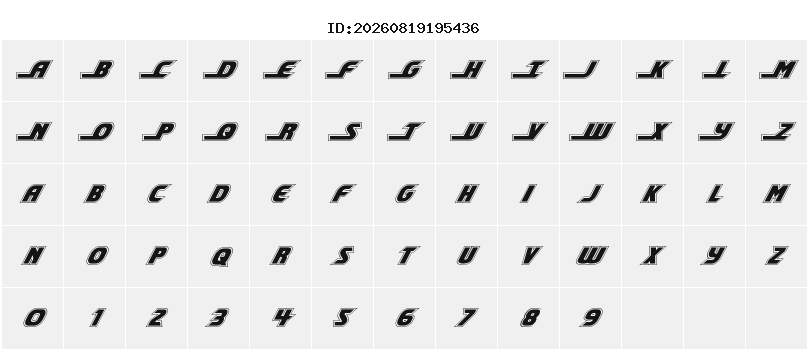
Shining Herald Academy Italic Preview
• Font Name: Shining Herald Academy Italic
• Full Font Name: Shining Herald Academy Italic
About Shining Herald Academy Italic.ttf
Shining Herald Academy Italic.ttf is a modern, elegant sans-serif font designed for ultimate readability and visual harmony. Perfect for branding, headlines, web design, and print materials.